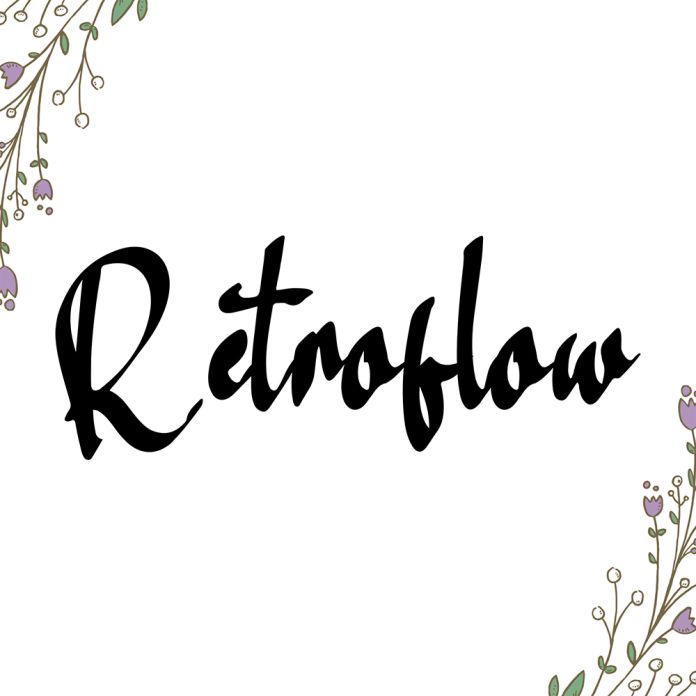
Retroflow is a heartwarming handwritten script font that blends bold strokes with elegant swashes, creating a cozy and inviting look. With its smooth curves and friendly flow, this font is perfect for crafting family quotes, home decor prints, greeting cards, logos, or any design that needs a personal, affectionate touch. It’s easy to read yet full of personality—just like the people you love most.